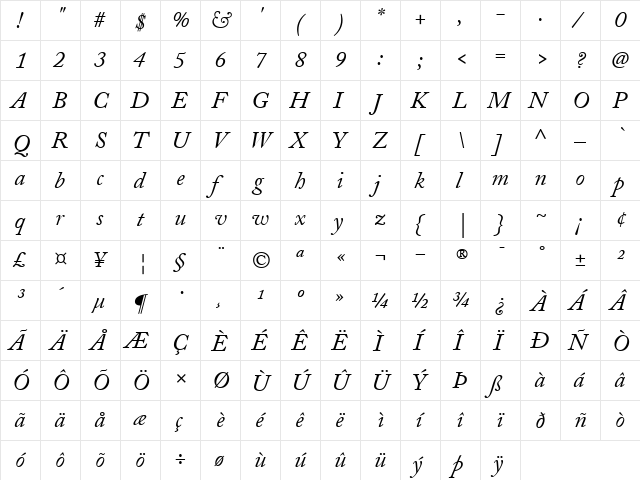
AdobeCaslon RomanItalic Font Preview
AdobeCaslon RomanItalic
AdobeCaslon RomanItalic Font Details
Design Context for AdobeCaslon Typeface
AdobeCaslon takes a measured approach to typography — its balanced proportions and neutral character make it a reliable workhorse for both digital and print work. The slanted form adds forward momentum and visual energy.
Pro Tip: Try AdobeCaslon for annotation and caption copy alongside an upright companion — the contrast in angle creates a dynamic but ordered typographic system.